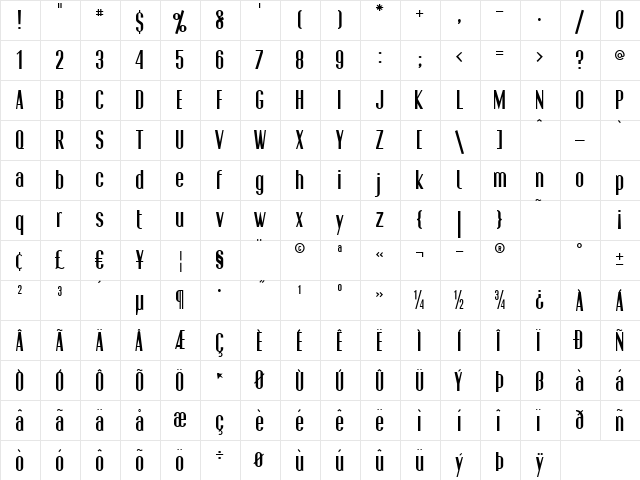
Pacific Sans Bold
Design Context for Pacific Sans Typeface
Pacific Sans is a composed and adaptable typeface that performs quietly and consistently across a wide range of design contexts. The heavy weight commands attention and anchors typographic hierarchies.